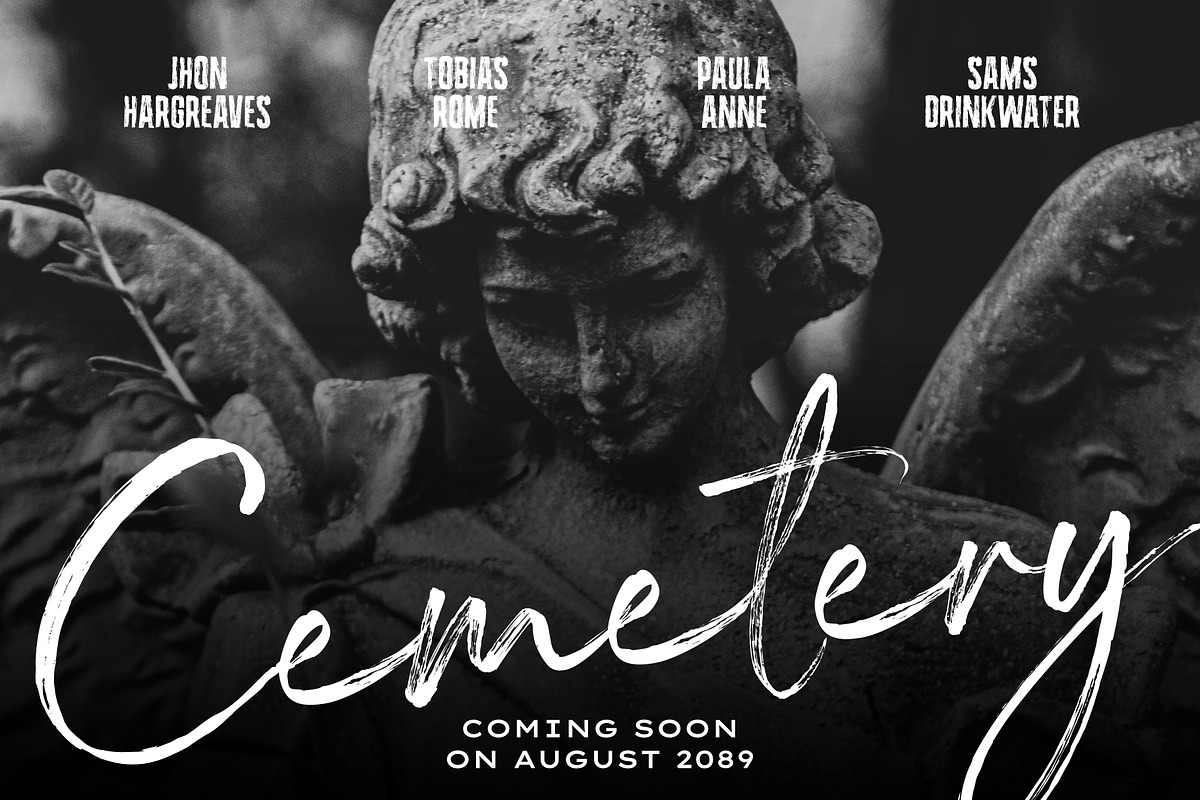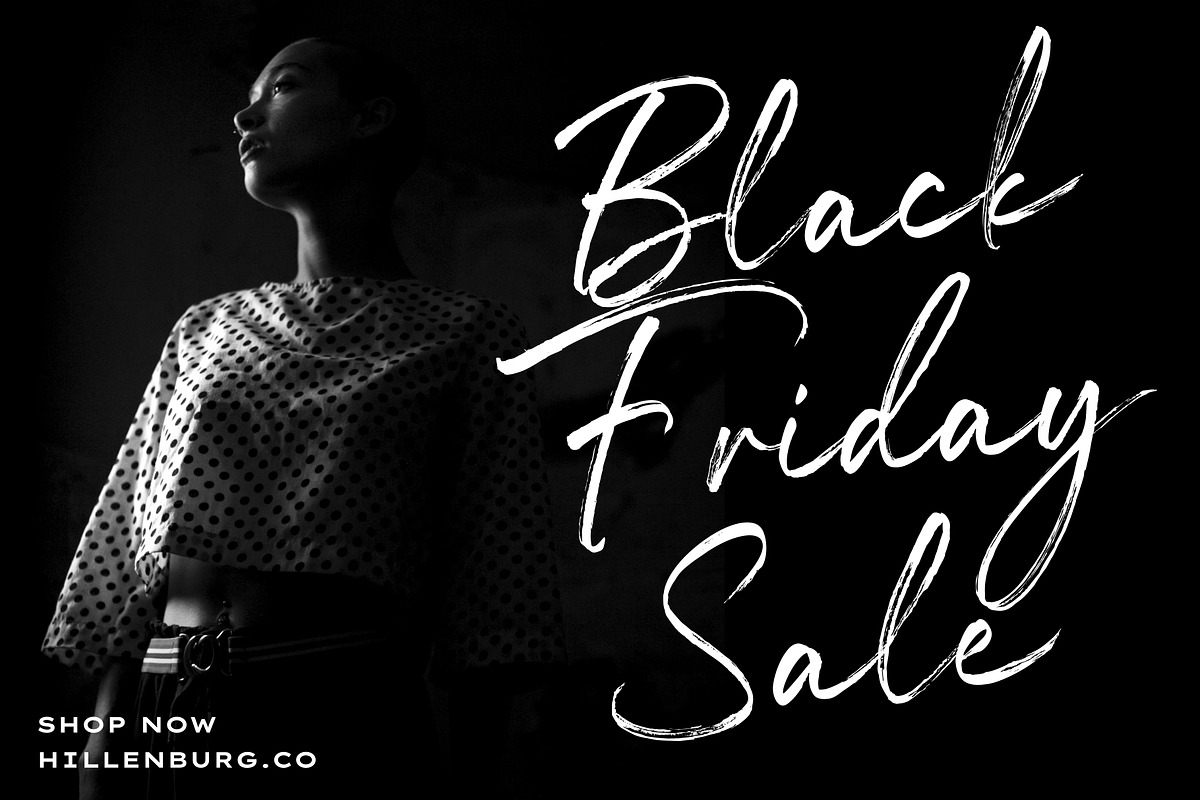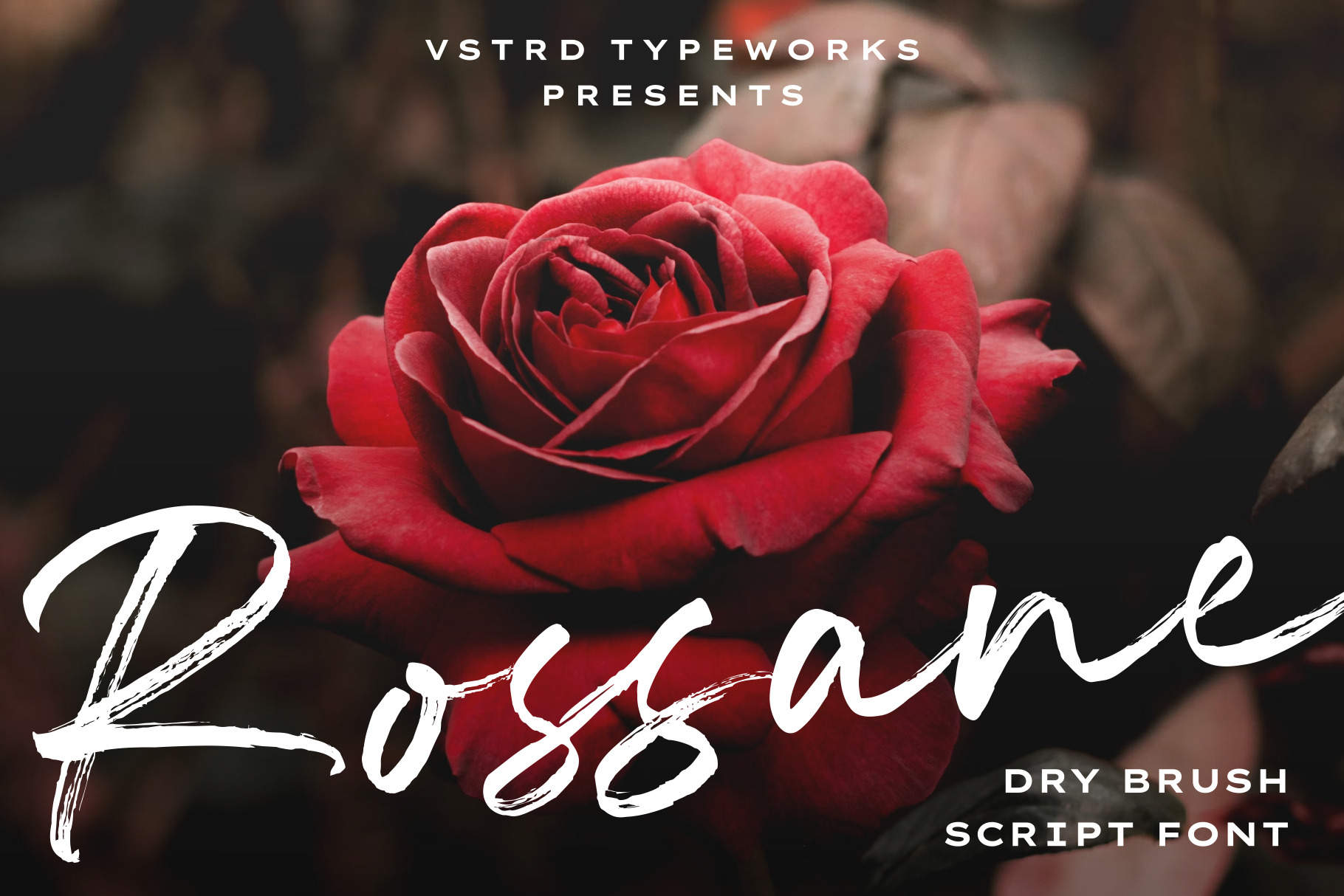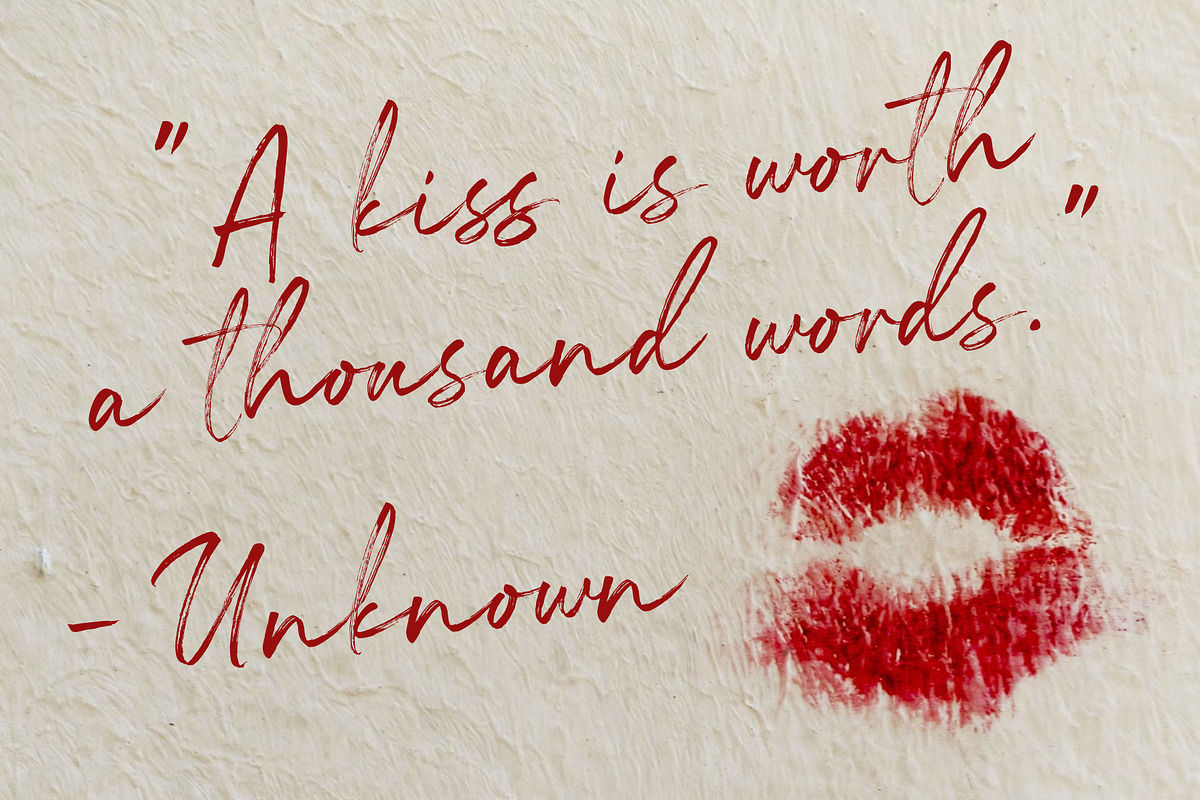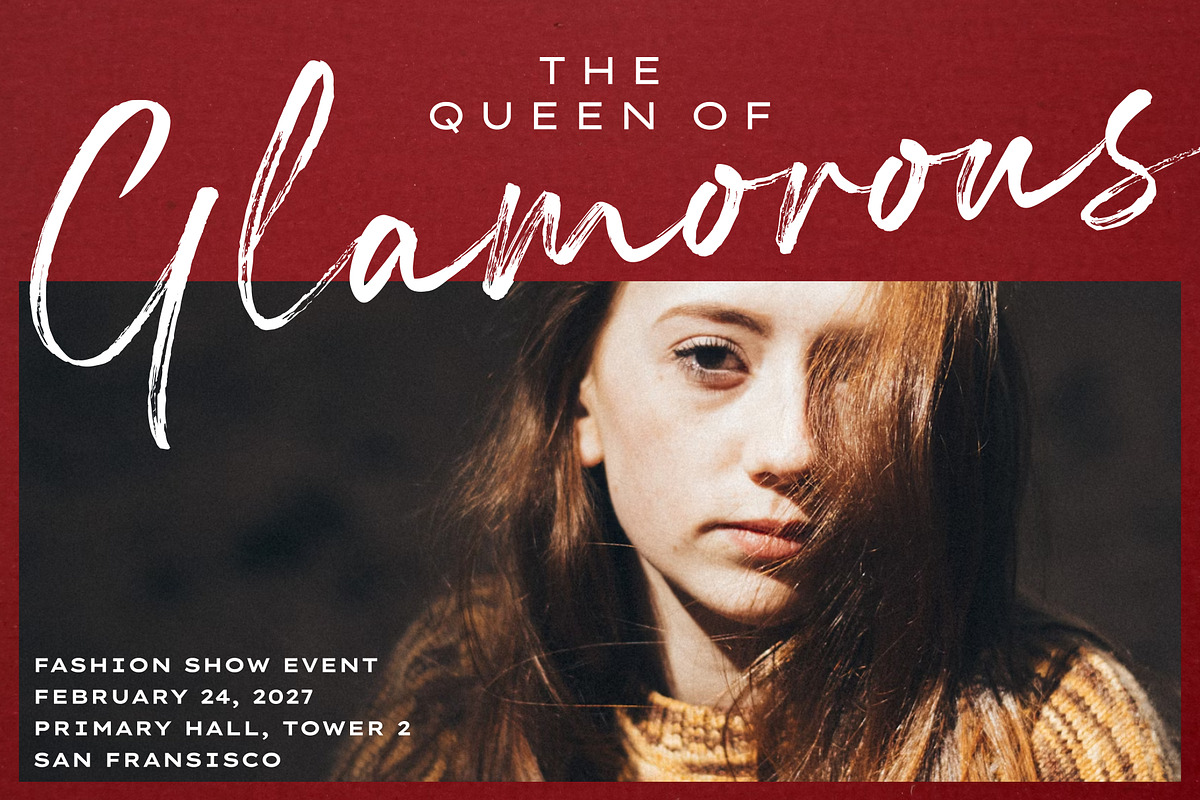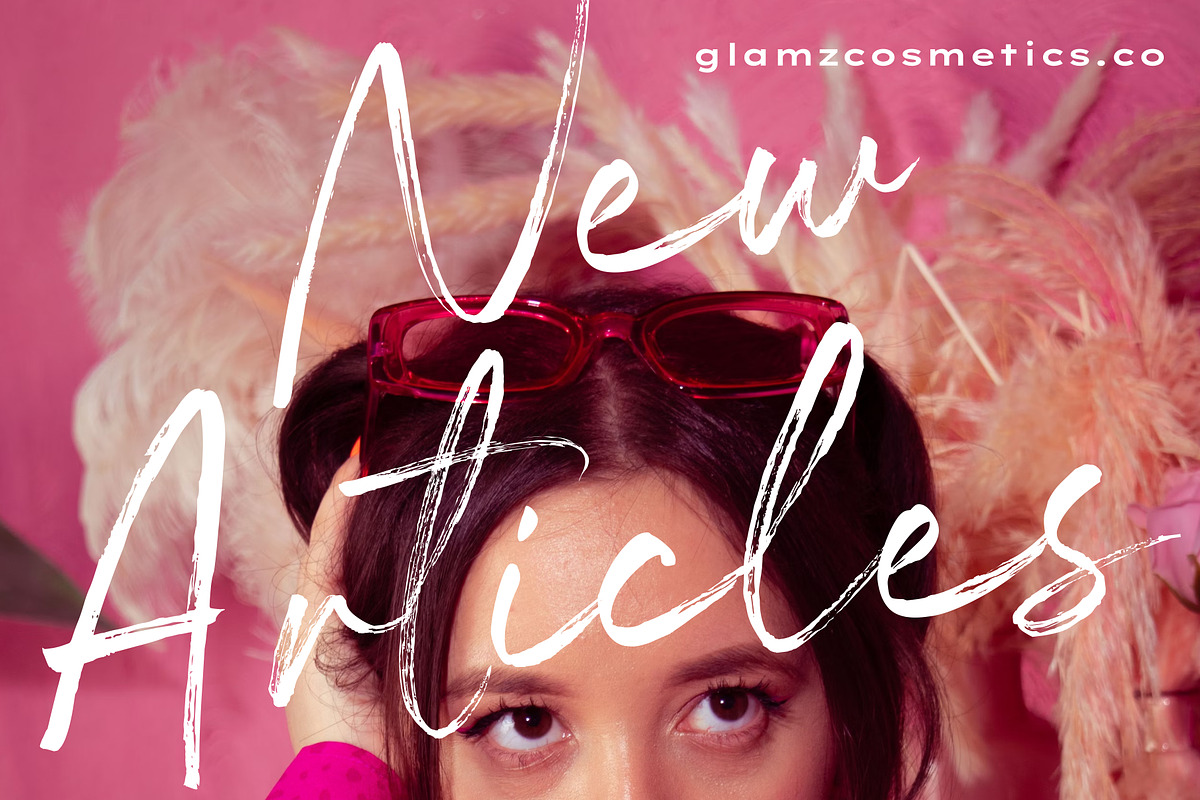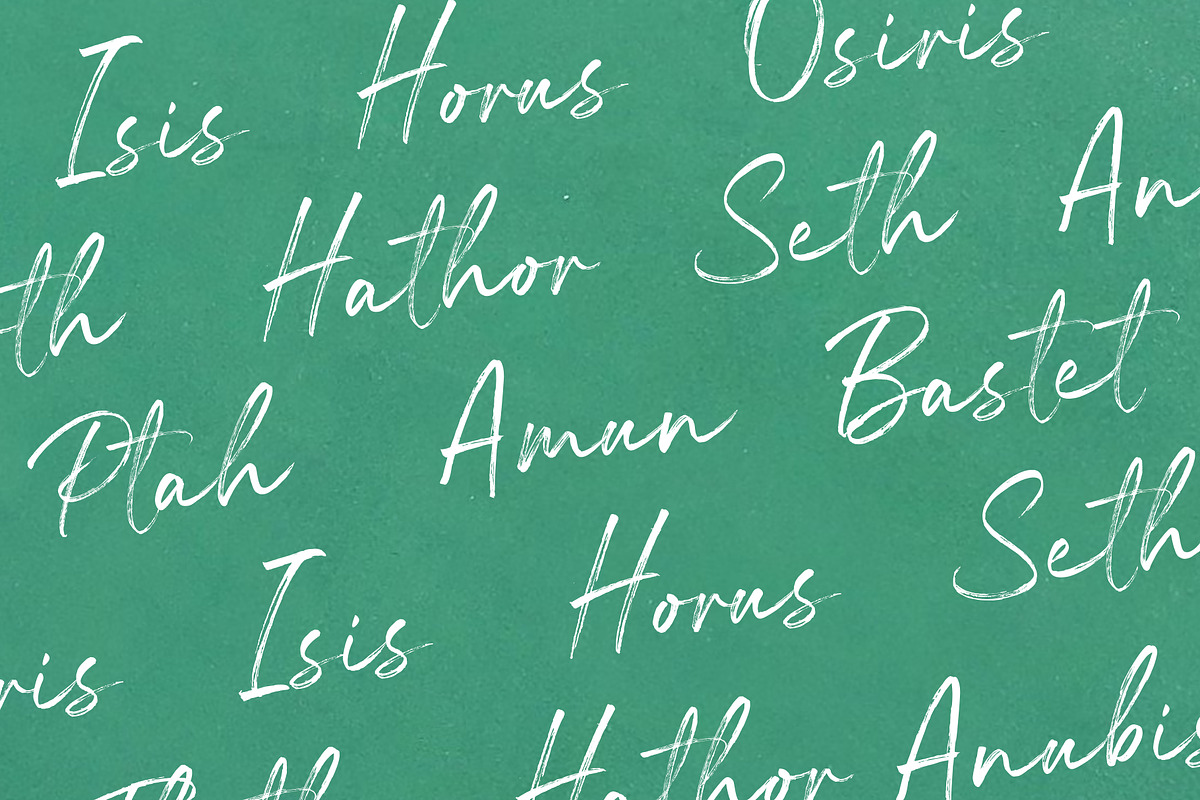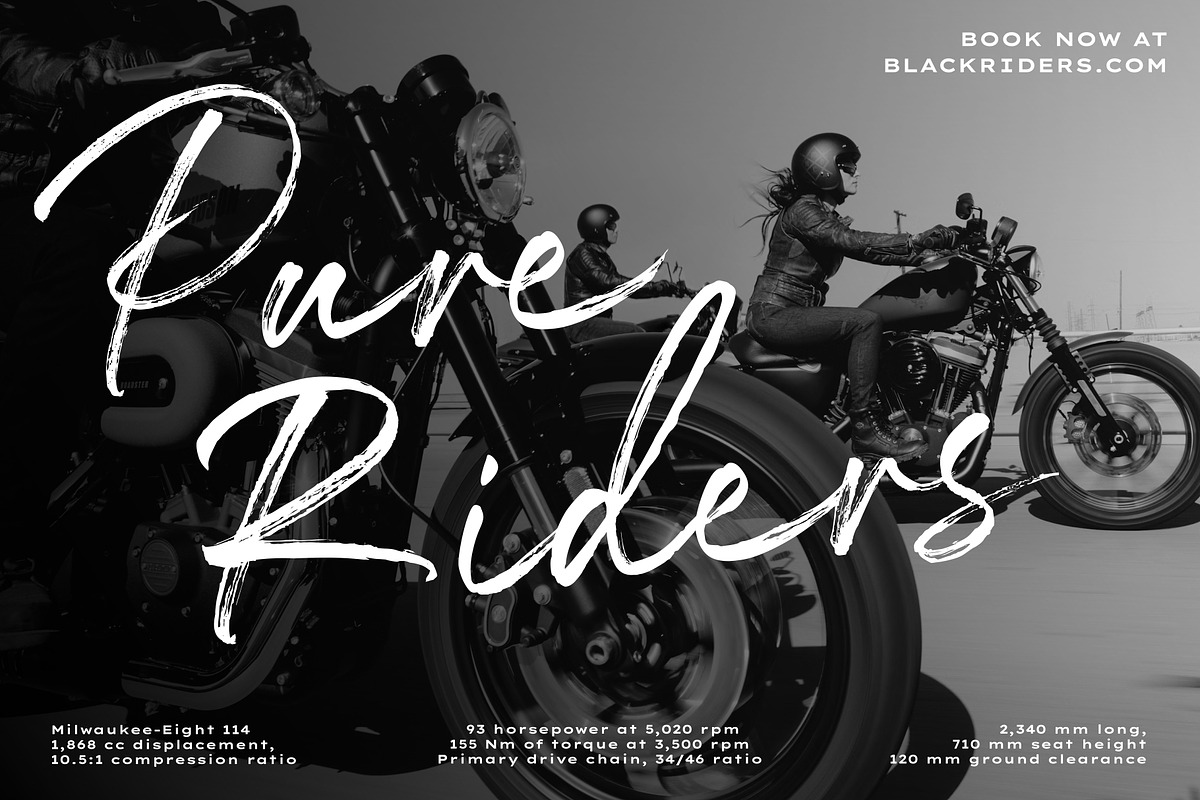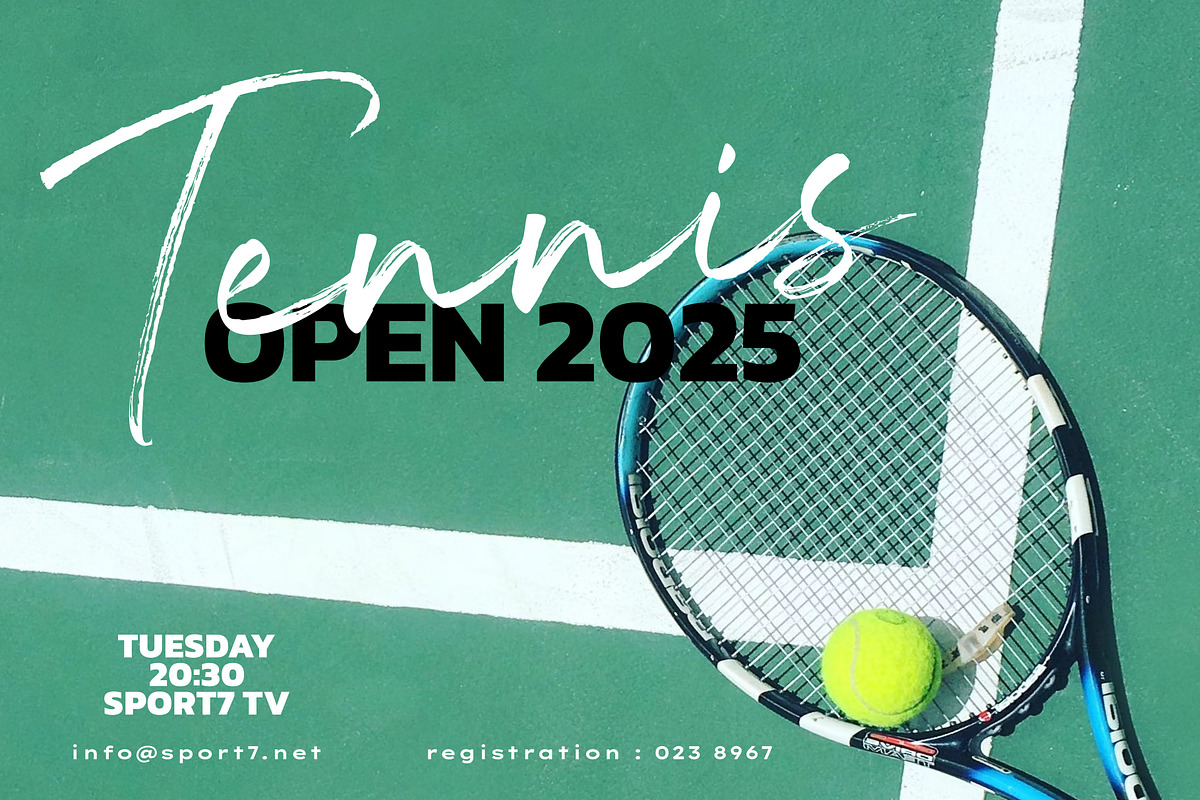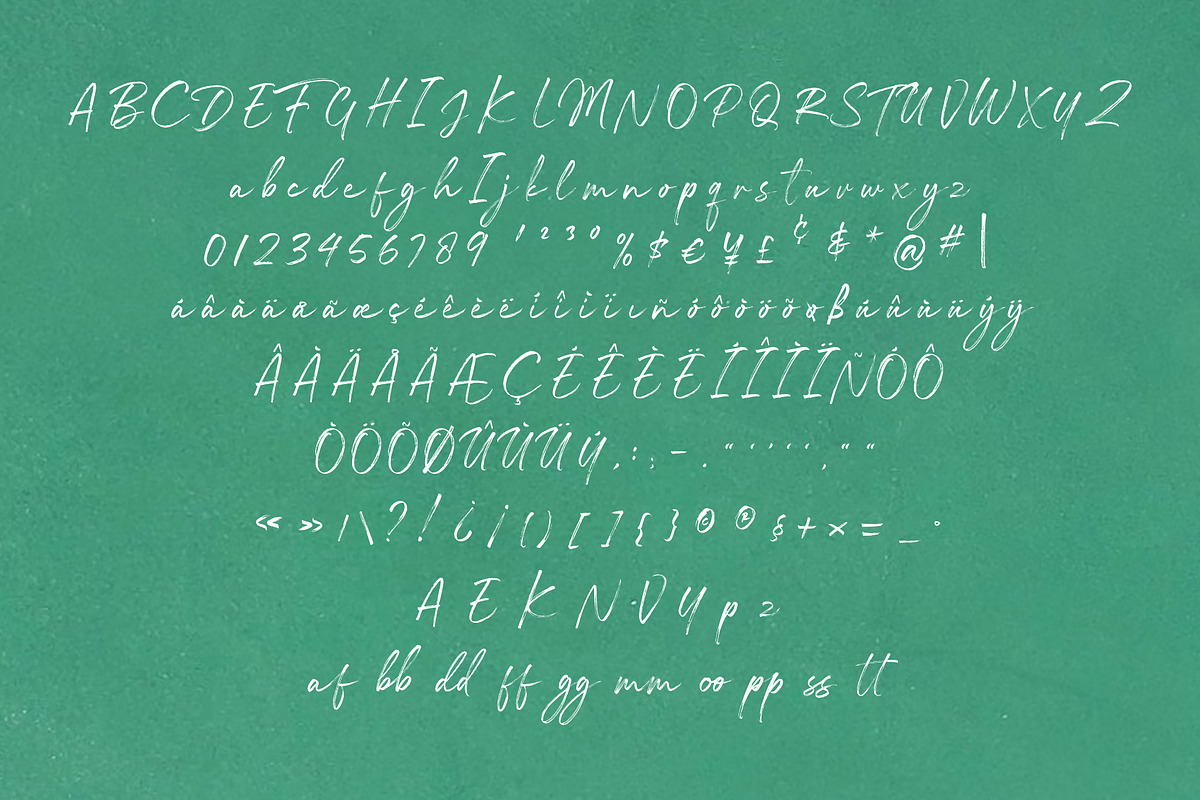
Rossane - Dry Brush Script Font
Introducing Rossane - Dry Brush Script Font
Rossane is a dry handwritten script brush font. This texture is very detailed. Very suitable for logos, product branding, printable templates, posters, flyers, shirts, or for text overlay to any background image. Rossane font comes in Uppercase, Lowercase, with punctuation, numerals and ligatures.